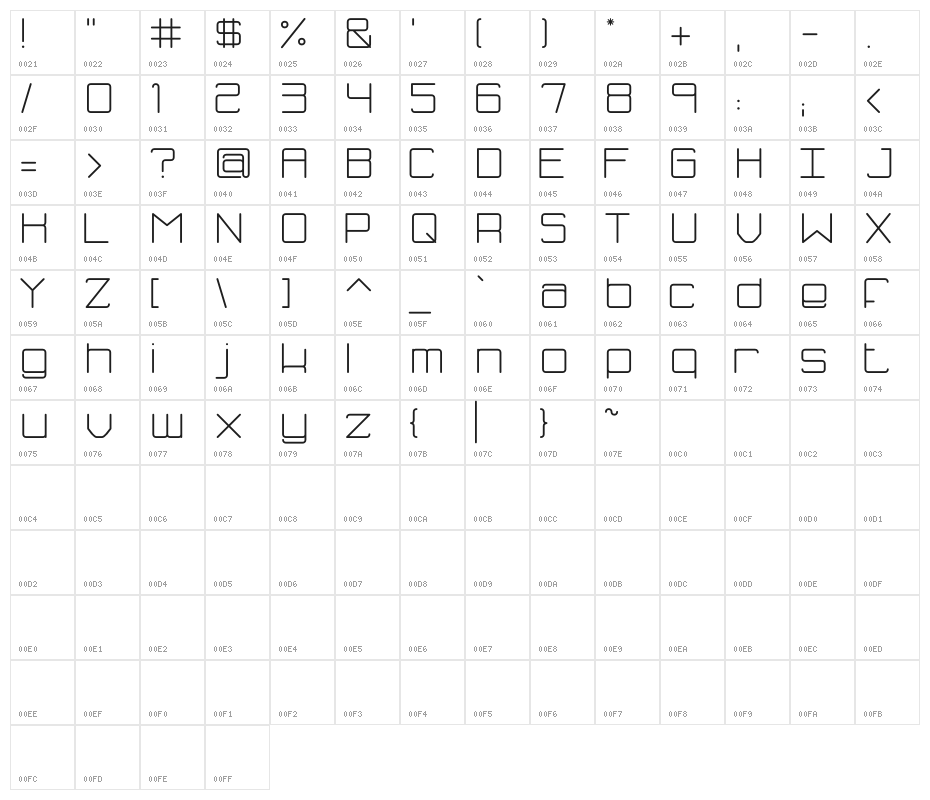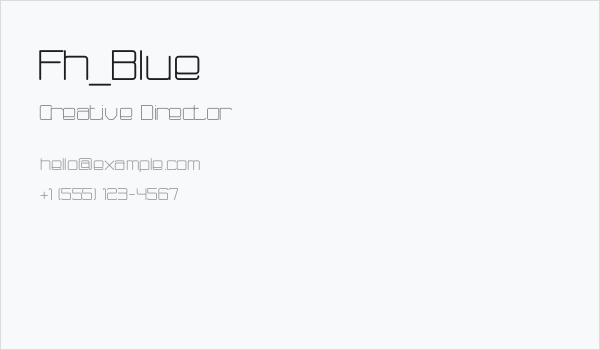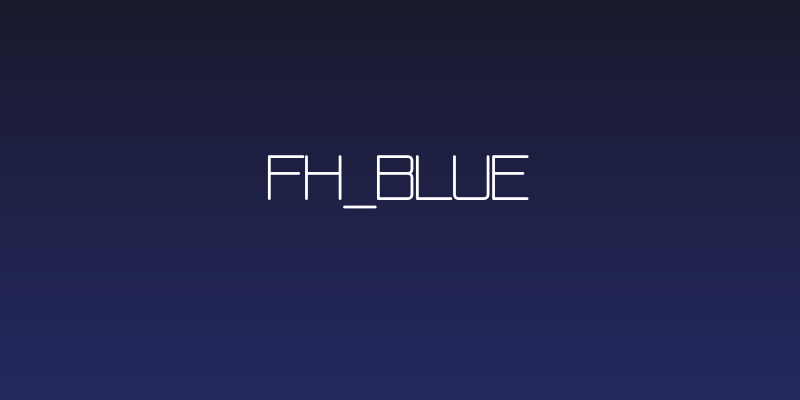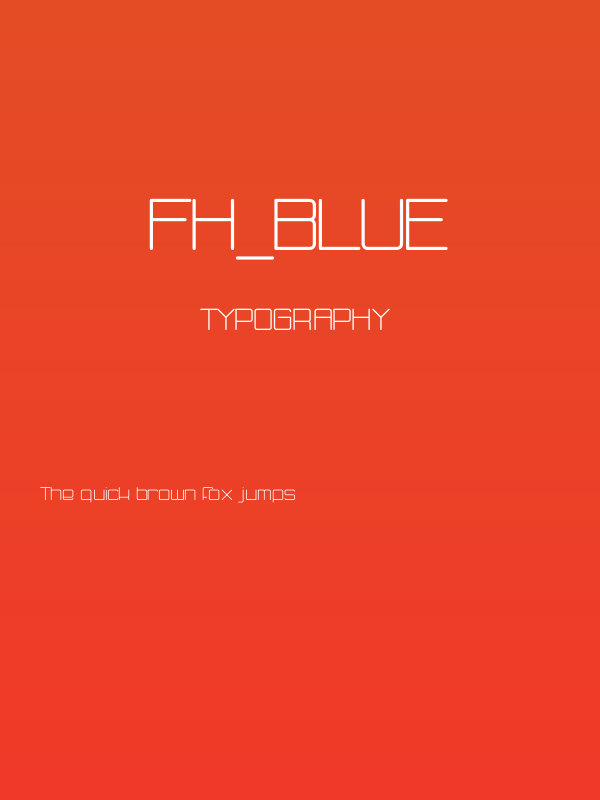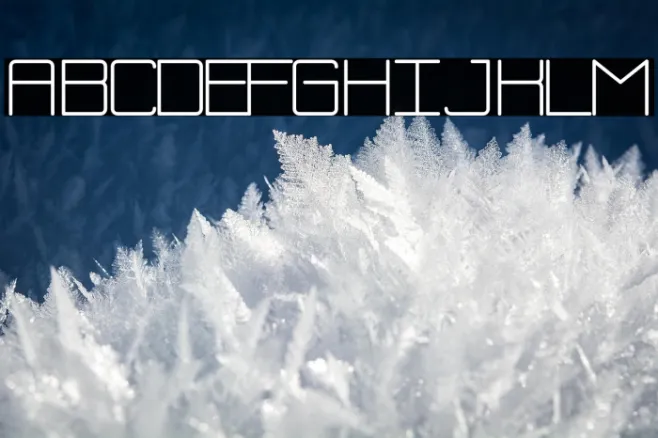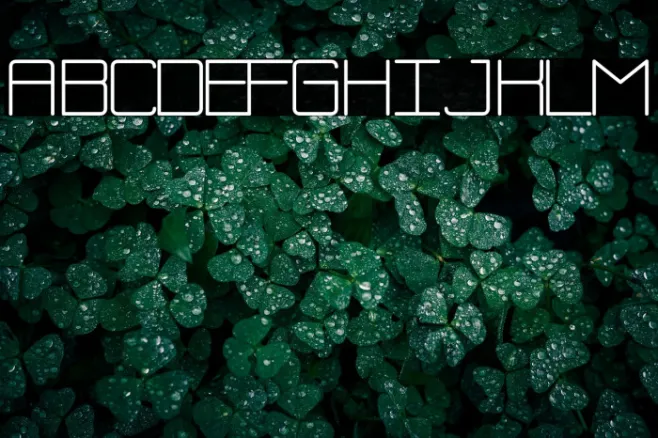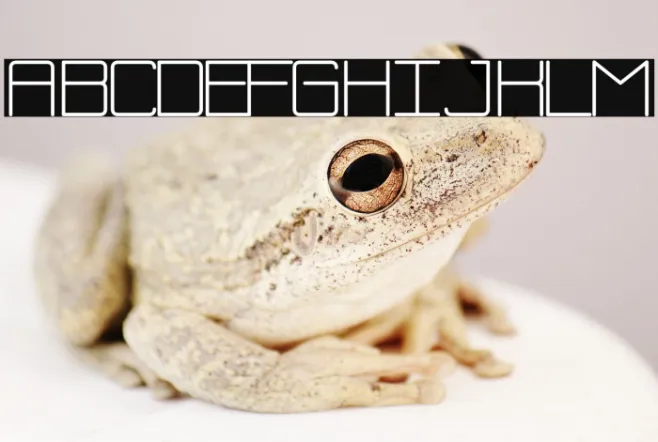
Fh_Blue Font
Fh_Blue Description
This font exhibits a modern, geometric style with a distinct, futuristic appearance. The characters are constructed with clean, straight lines and rounded corners, giving them a sleek and minimalistic look. The uppercase and lowercase letters maintain a consistent height, contributing to a uniform and orderly presentation. The numerals and special characters follow the same design principles, ensuring a cohesive aesthetic throughout. The font's structure is open and airy, with ample spacing between characters, enhancing readability while maintaining its unique style.
| Overall Style | Futuristic, Minimalistic |
| Use Case | Logos, Headlines, Digital Interfaces |
| Proposed Projects | Ideal for technology branding, modern web design, futuristic posters, and digital interfaces. |